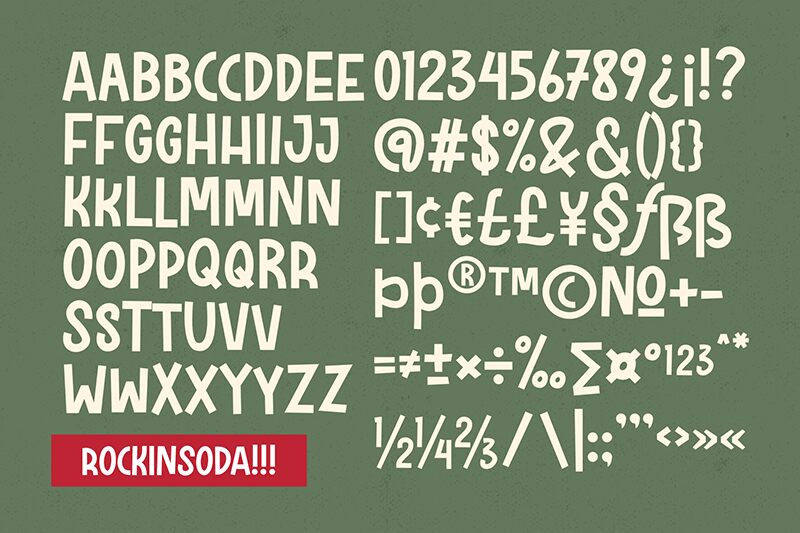
Rockinsoda
Rockinsoda font designed by Holisfonts.com is a cartoon display font with a rugged, bold impact. It captures both a commanding presence and retro influence for an incredible vintage appeal. The geometric sans designs support straight lines as well as some interesting and funky curves with the squared elements created offering an unusual visual surprise.